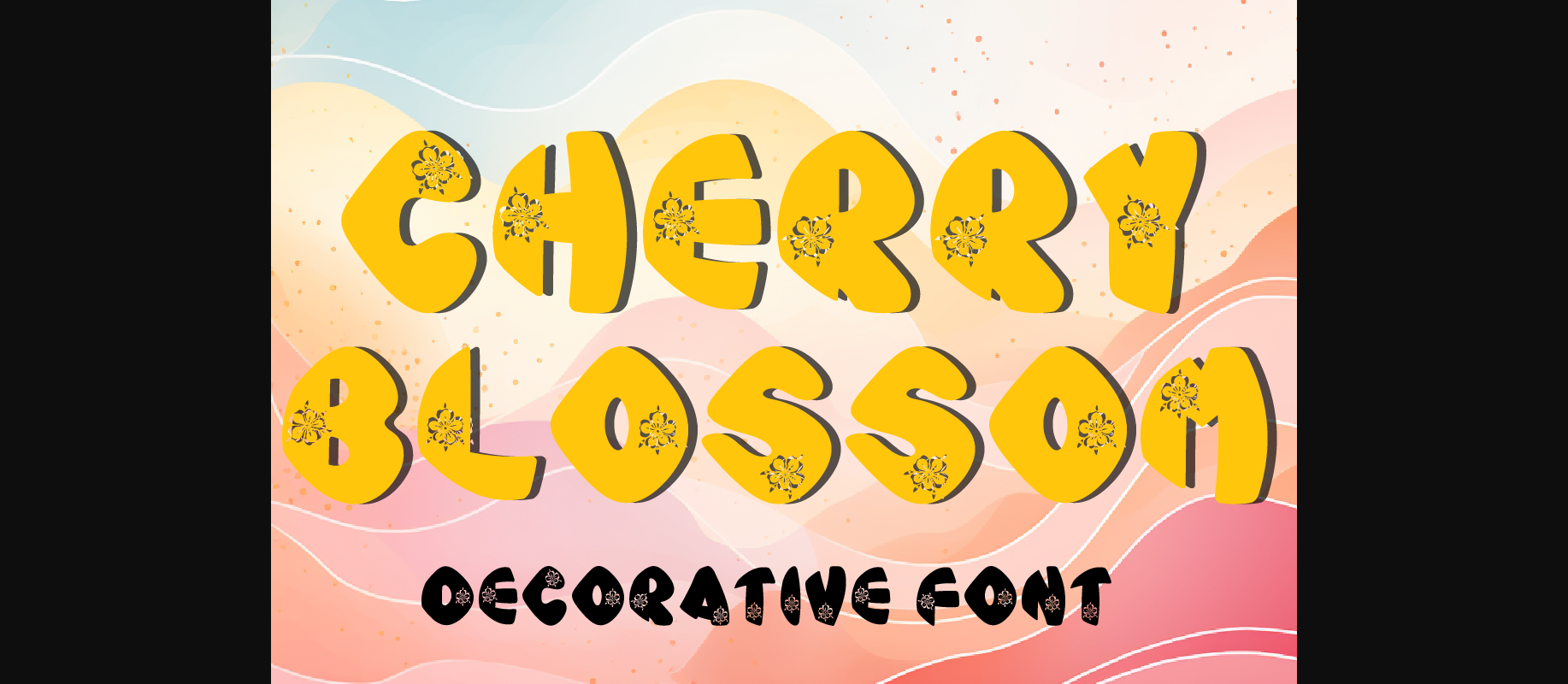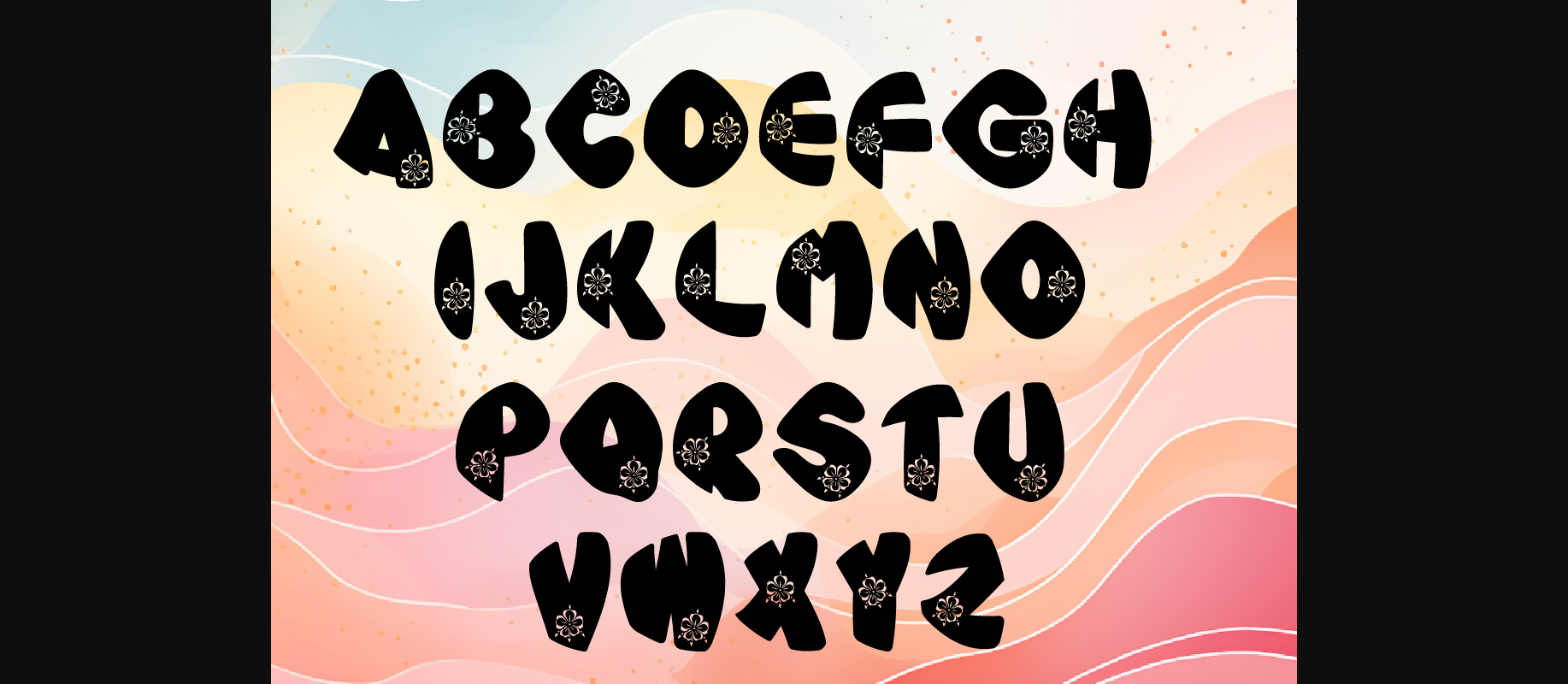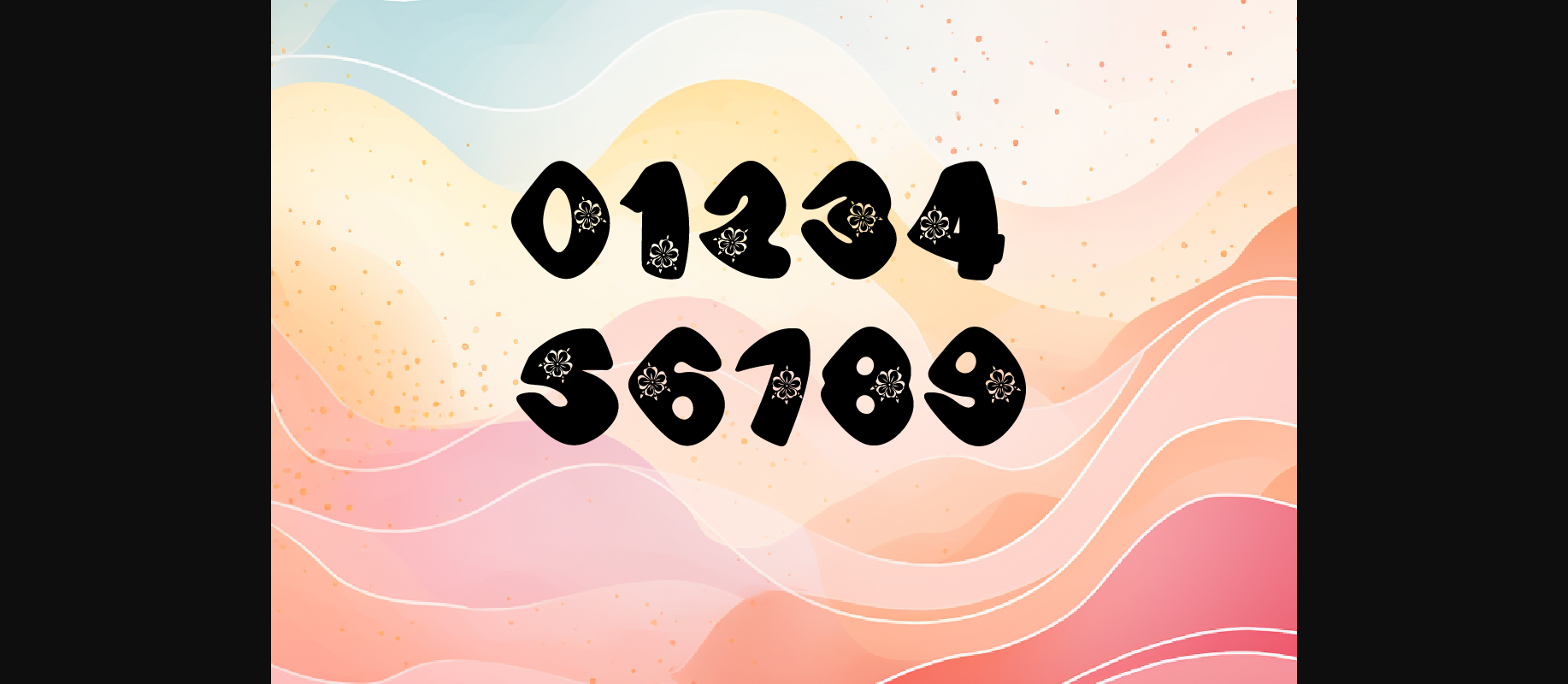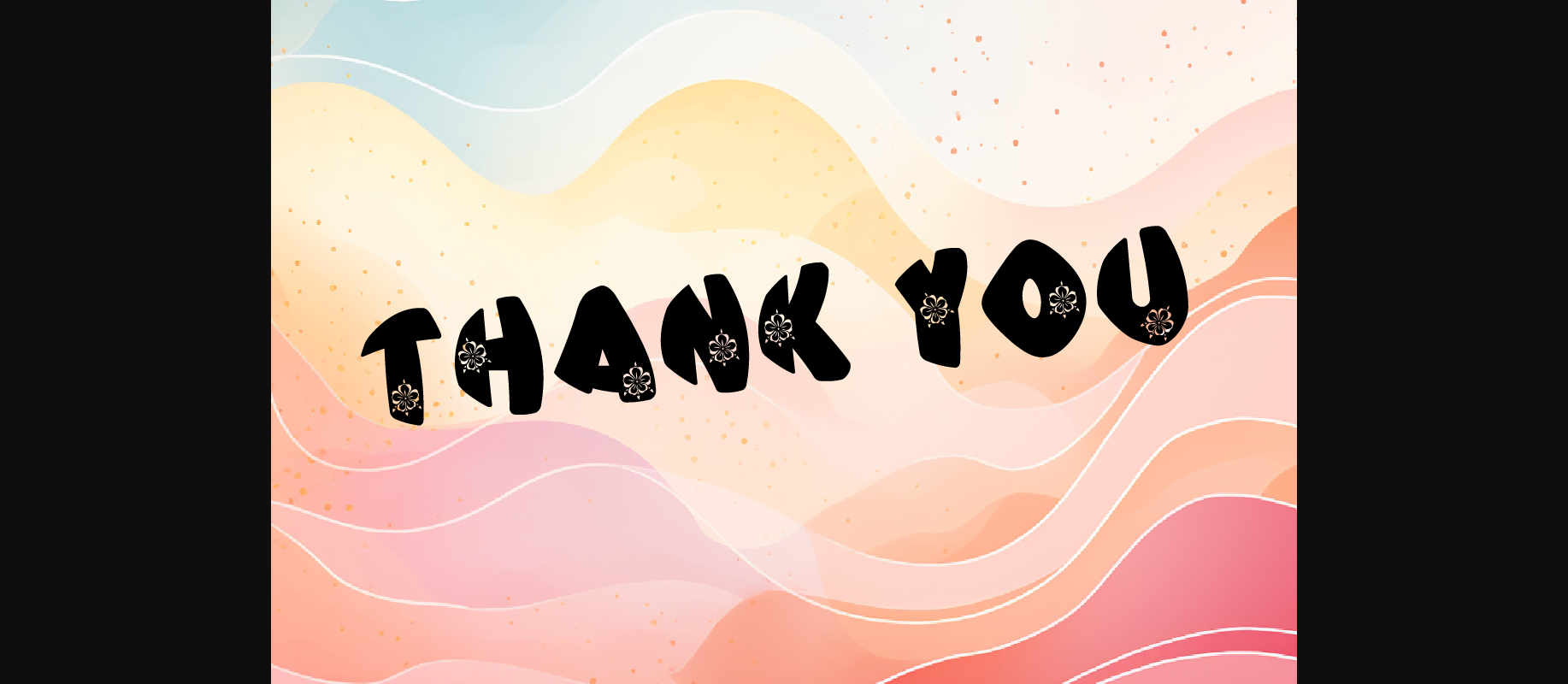
Love Cherry Blossom Font
About Love Cherry Blossom Font
Introducing Love Cherry Blossom, a delightful font where each letter is intricately designed with the delicate beauty of cherry blossoms. With 26 capital letters and 10 numbers, this font set offers a unique touch of elegance and charm to your projects. Whether you’re designing invitations, branding materials, or artwork, these fonts can be seamlessly incorporated into various applications.